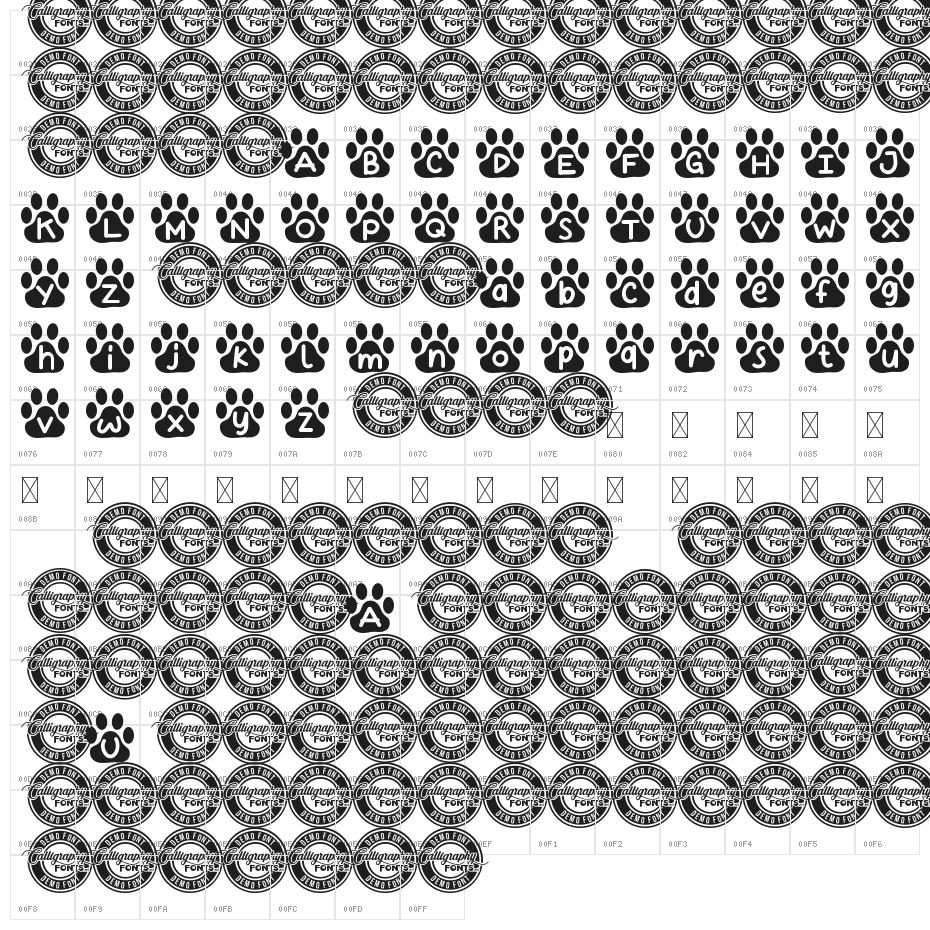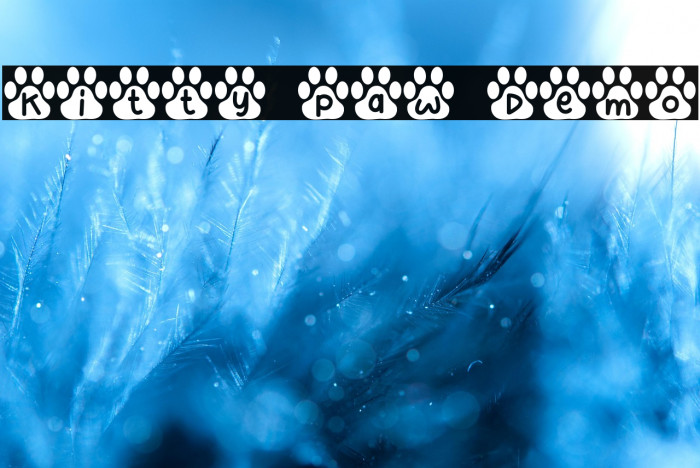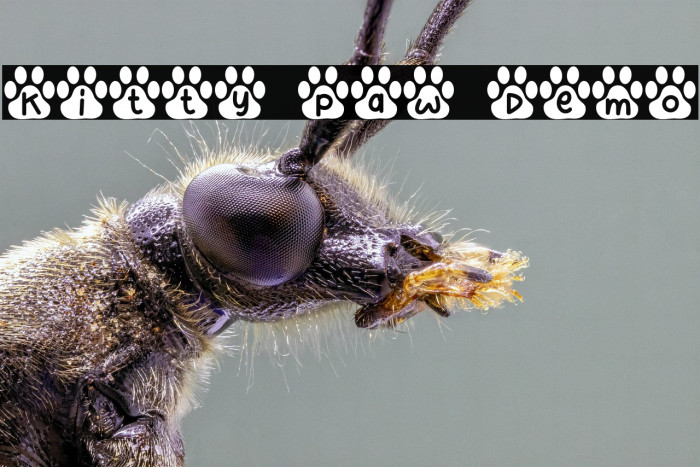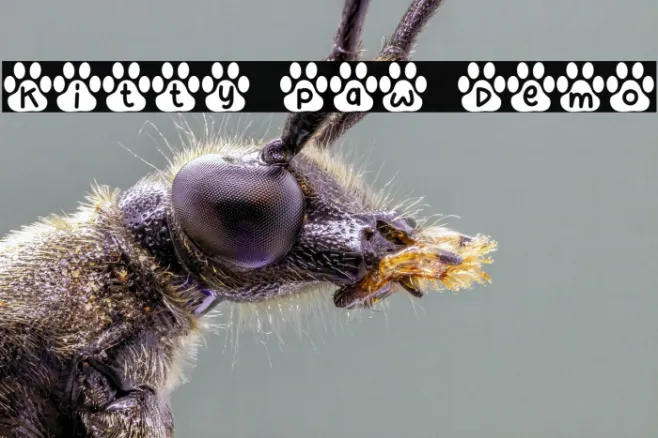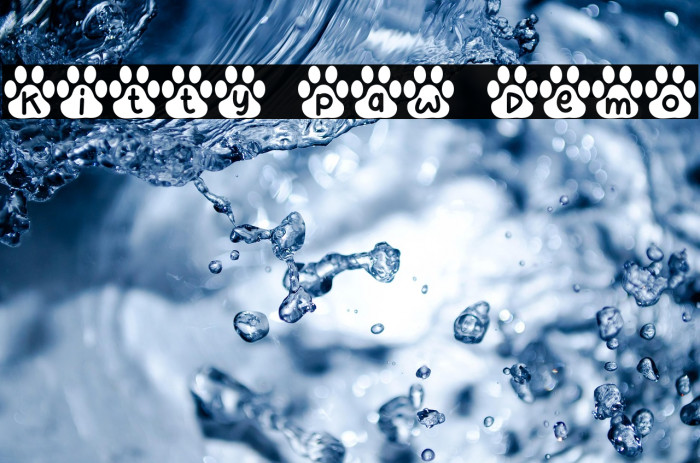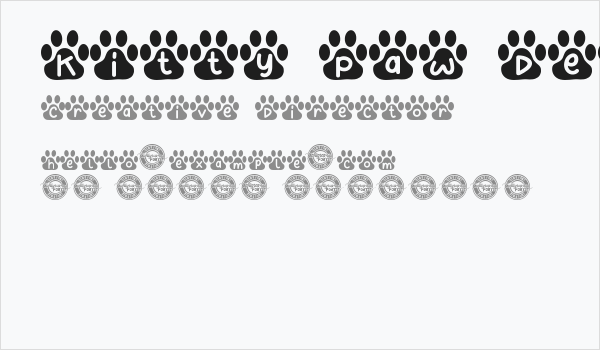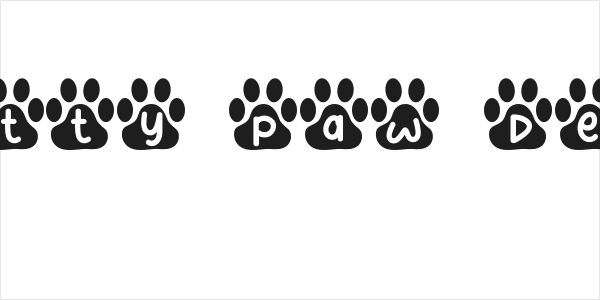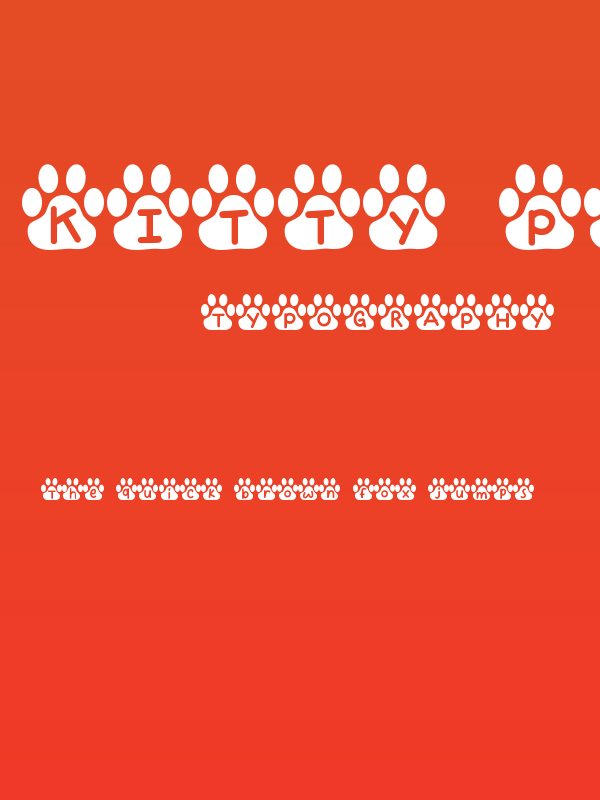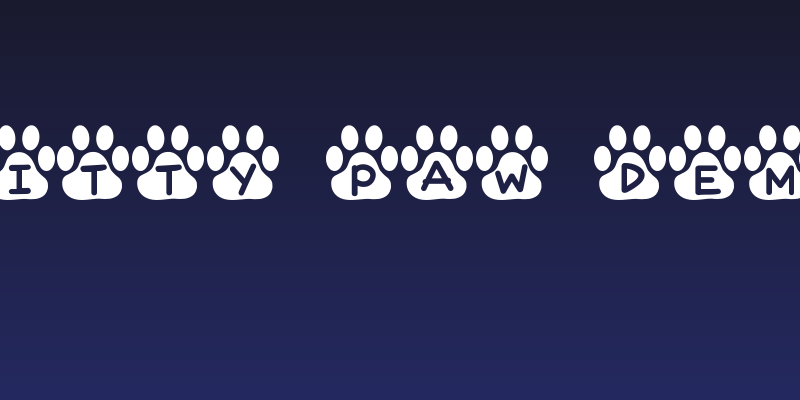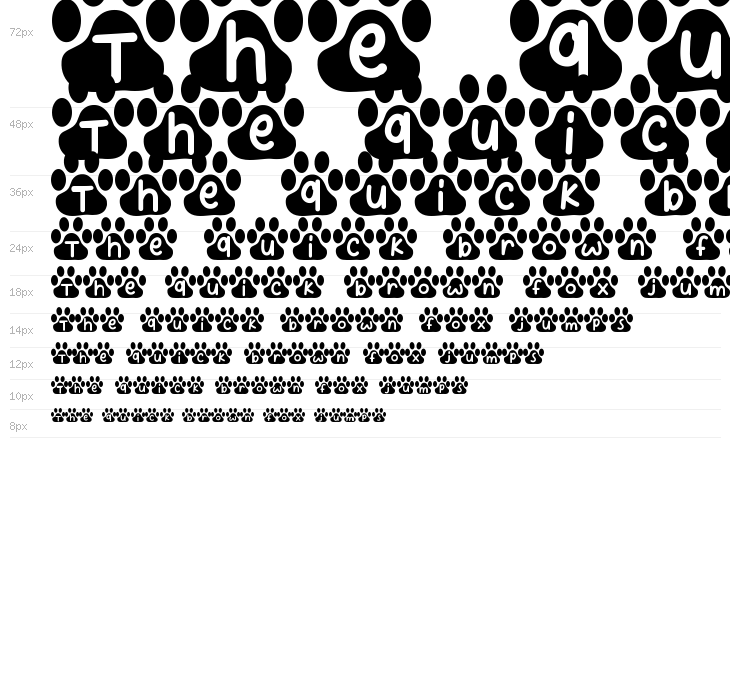
Kitty Paw Demo Font
Kitty Paw Demo Description
This playful and whimsical font features letters embedded within paw prints, creating a fun and engaging visual style. Each character is distinct, with bold, rounded edges that enhance readability while maintaining a unique decorative flair. The font is perfect for projects that require a light-hearted and friendly touch, such as children's books, pet-related branding, or playful event invitations. The consistent use of paw prints across all characters adds a cohesive theme, making it ideal for designs that aim to convey warmth and friendliness.
| Proposed Projects | Children's books, pet store branding, playful event invitations, animal-themed merchandise. |